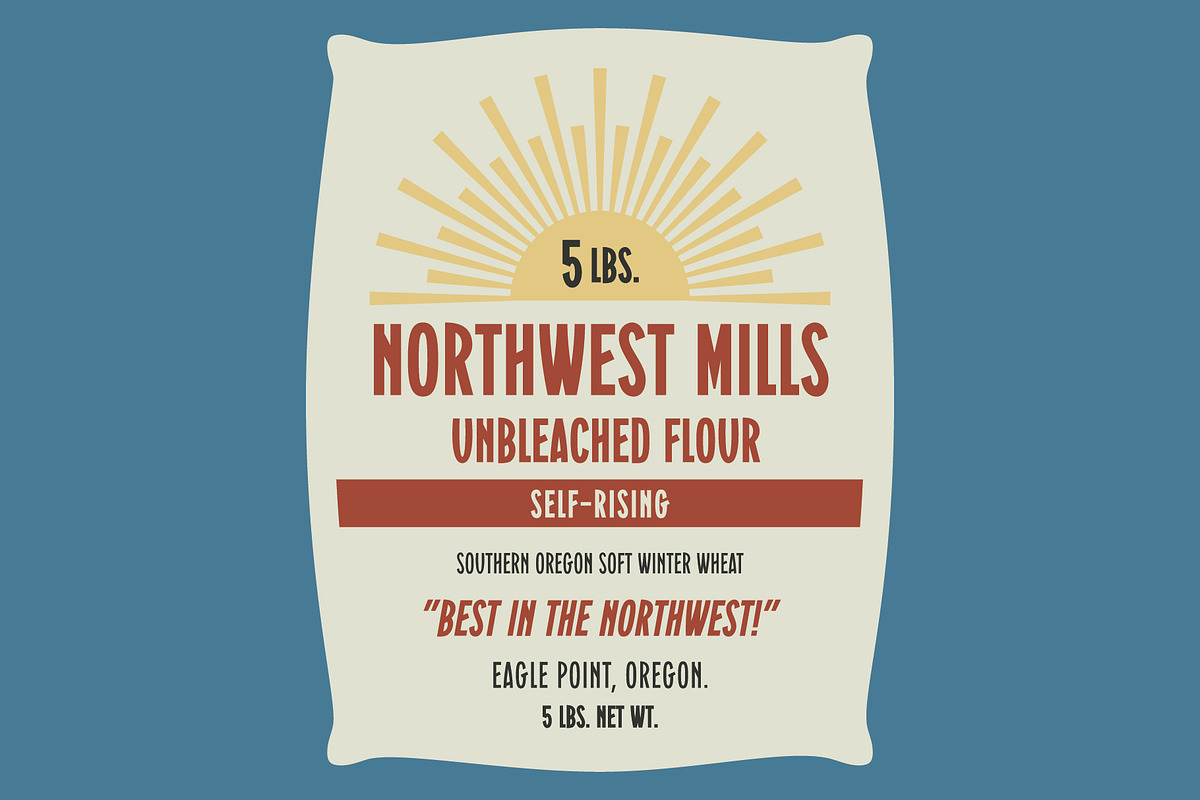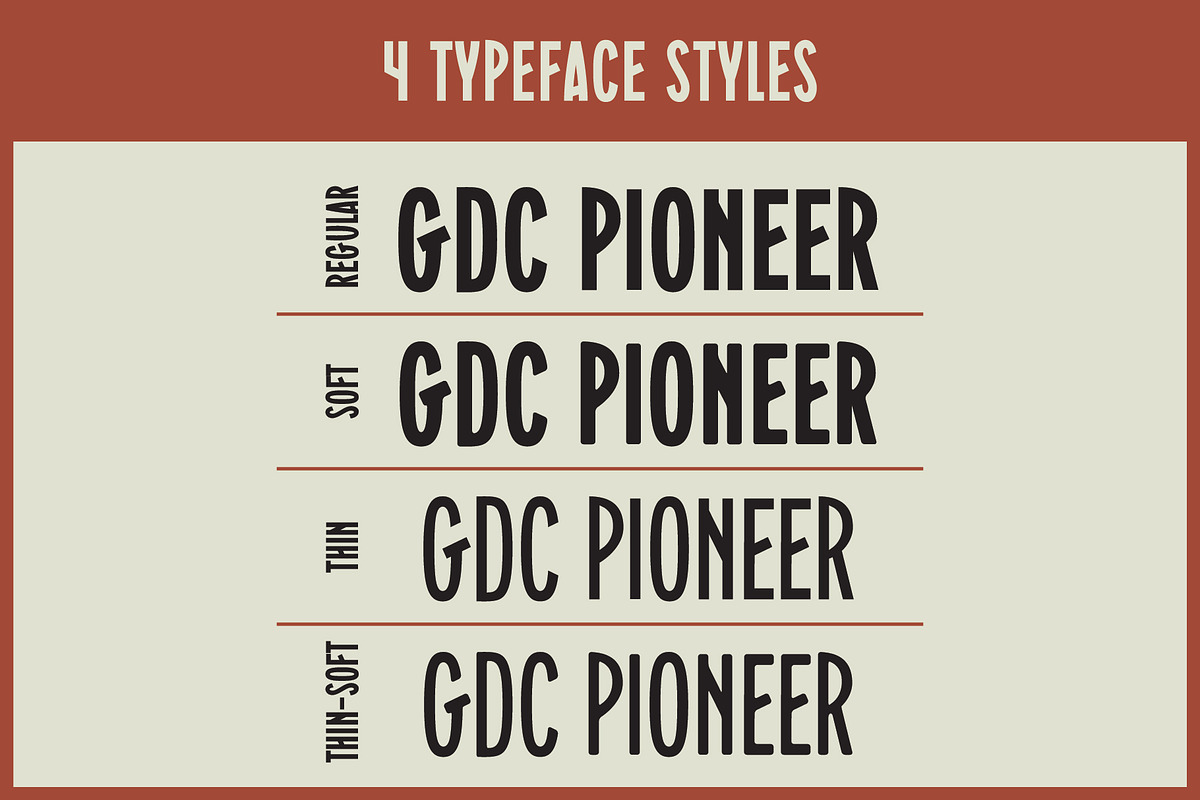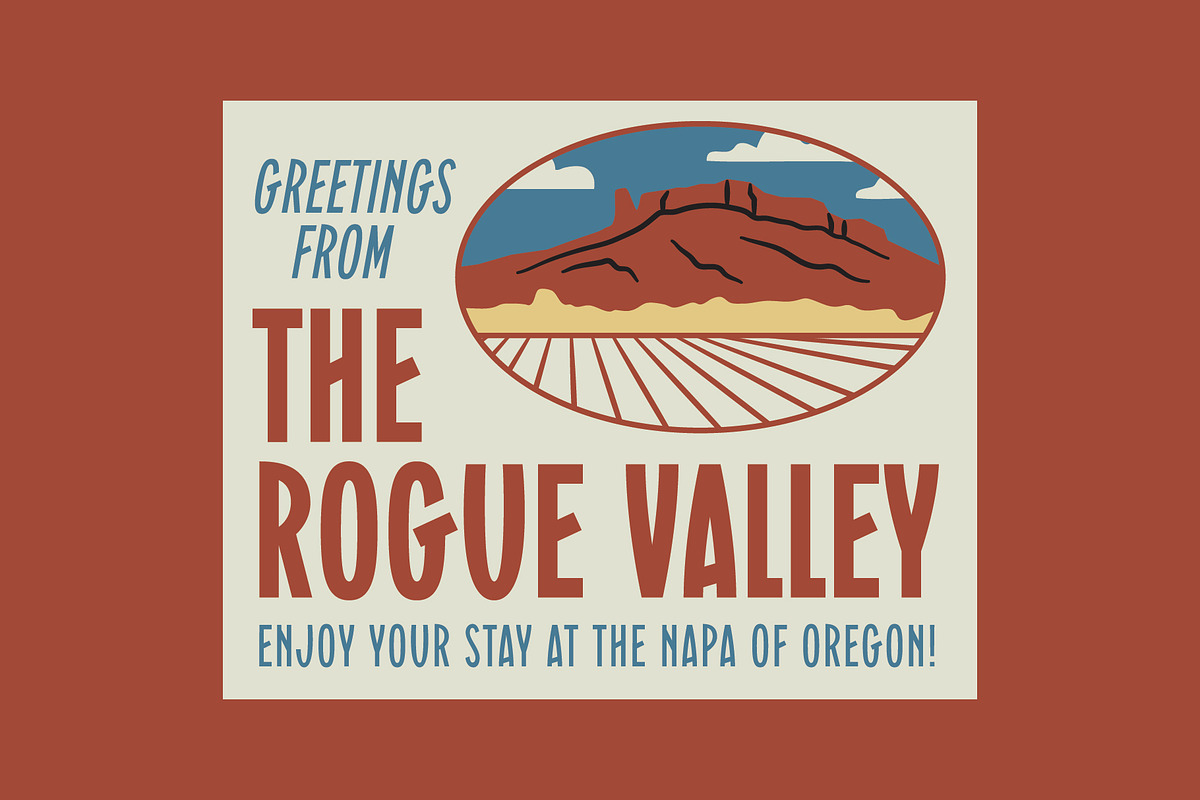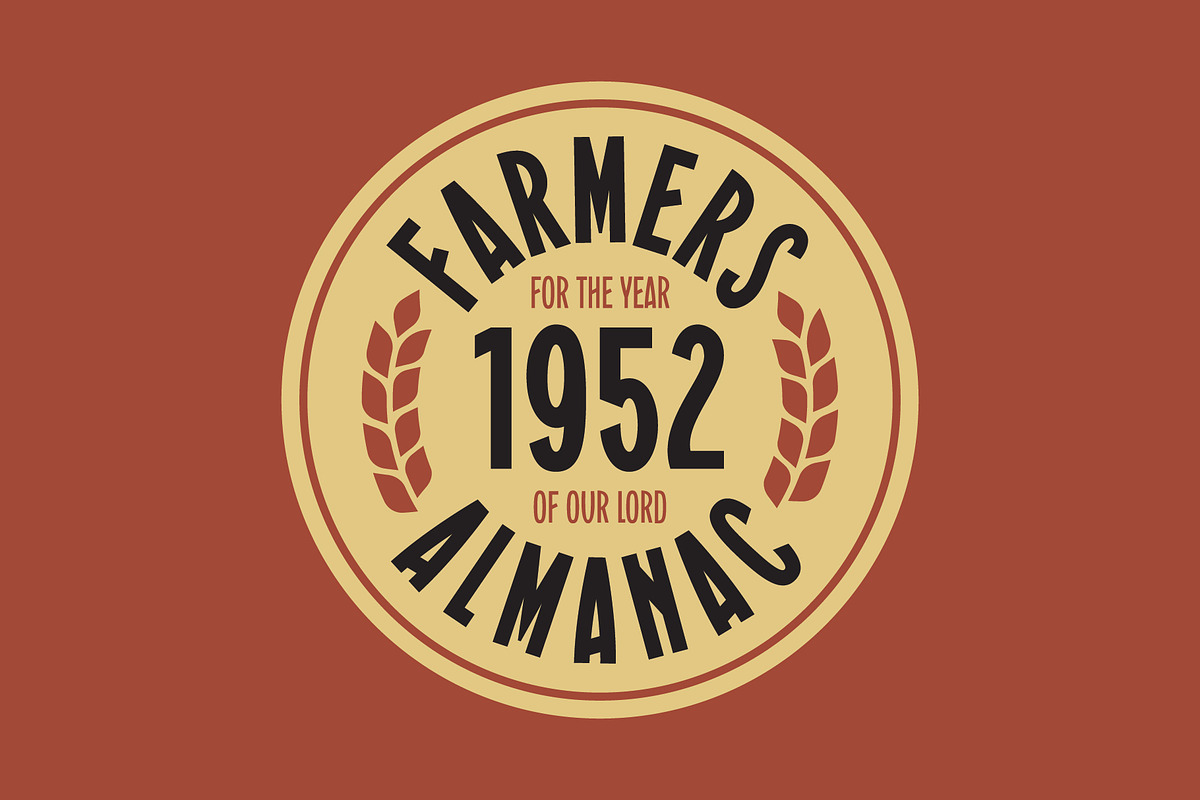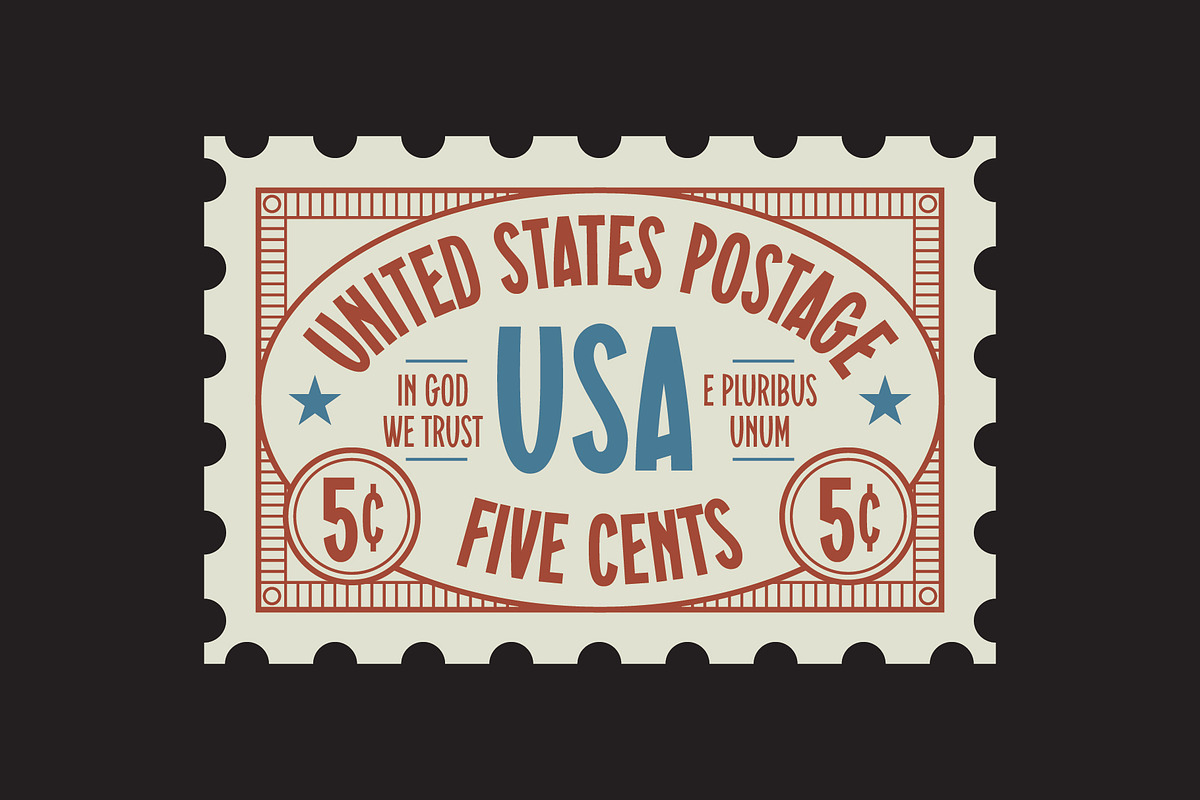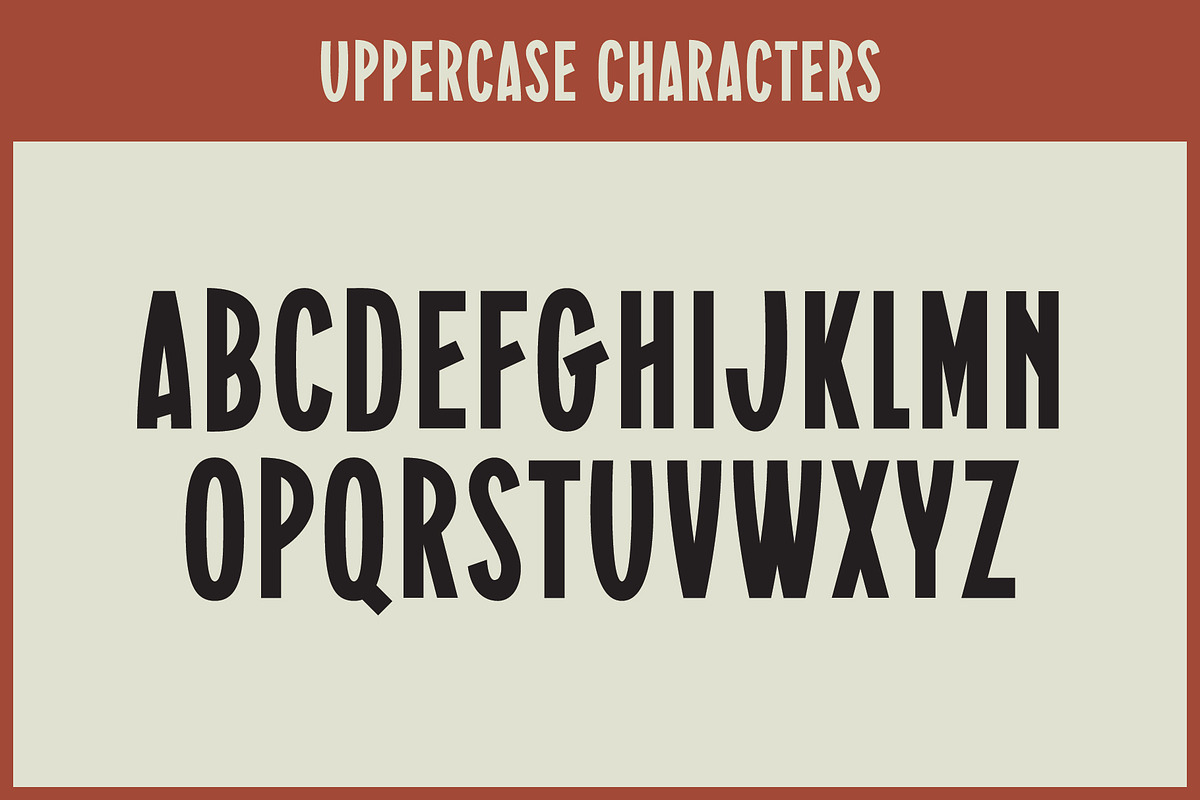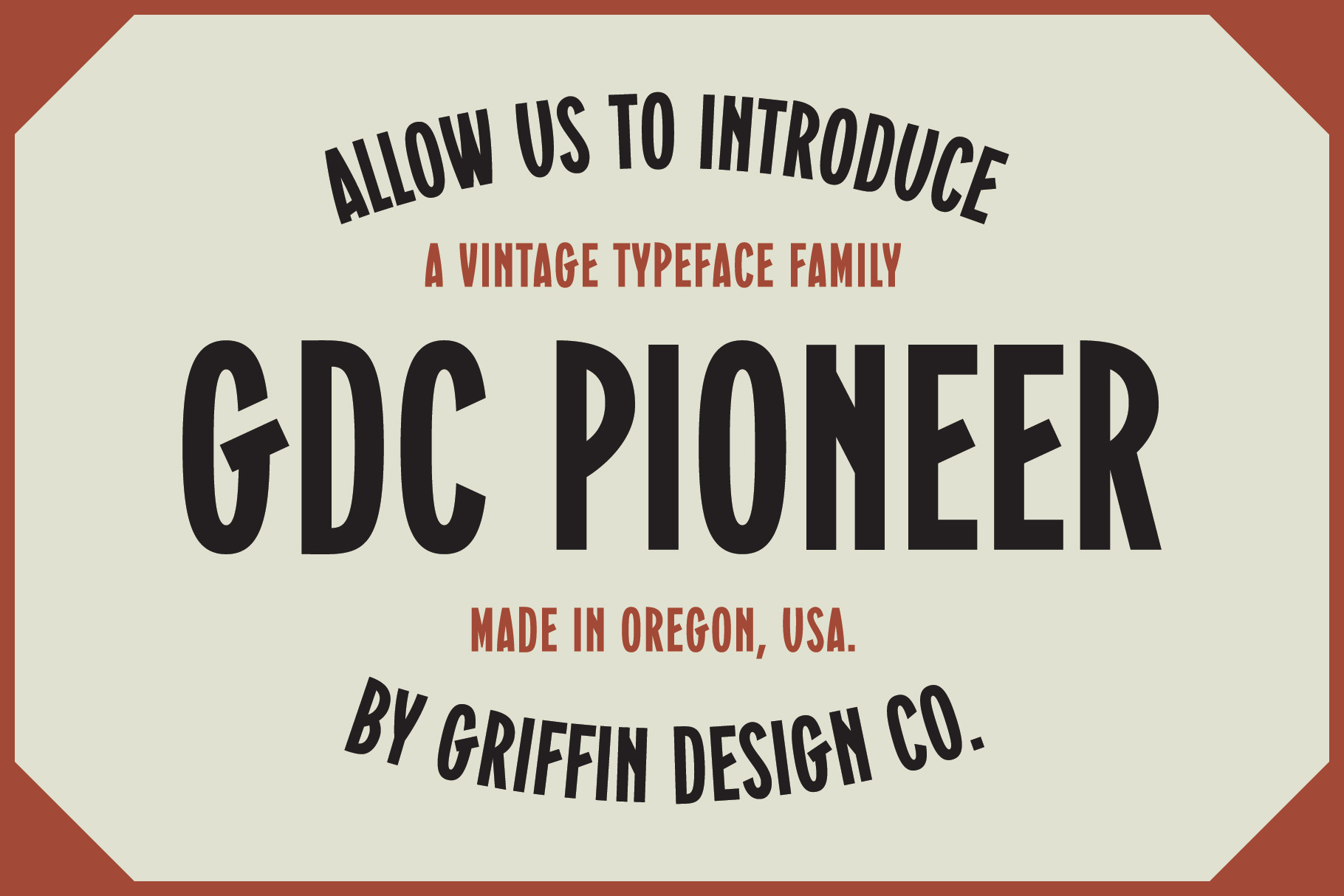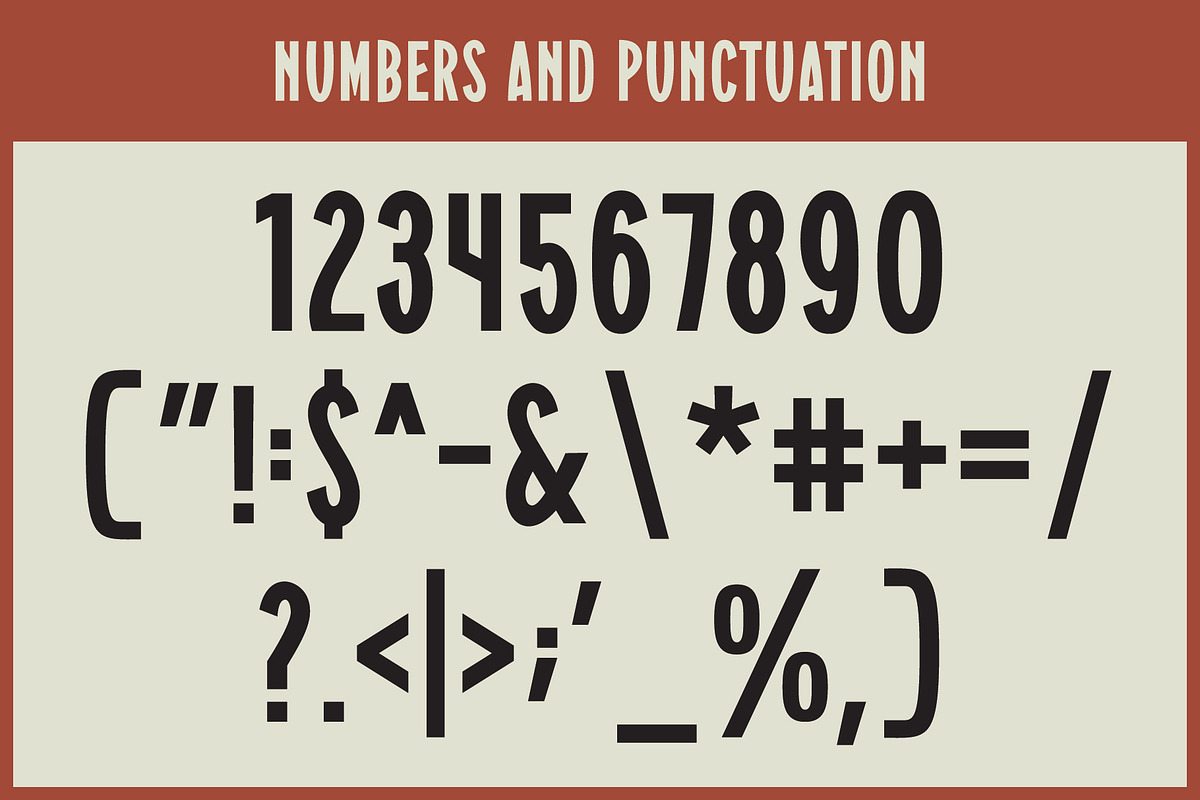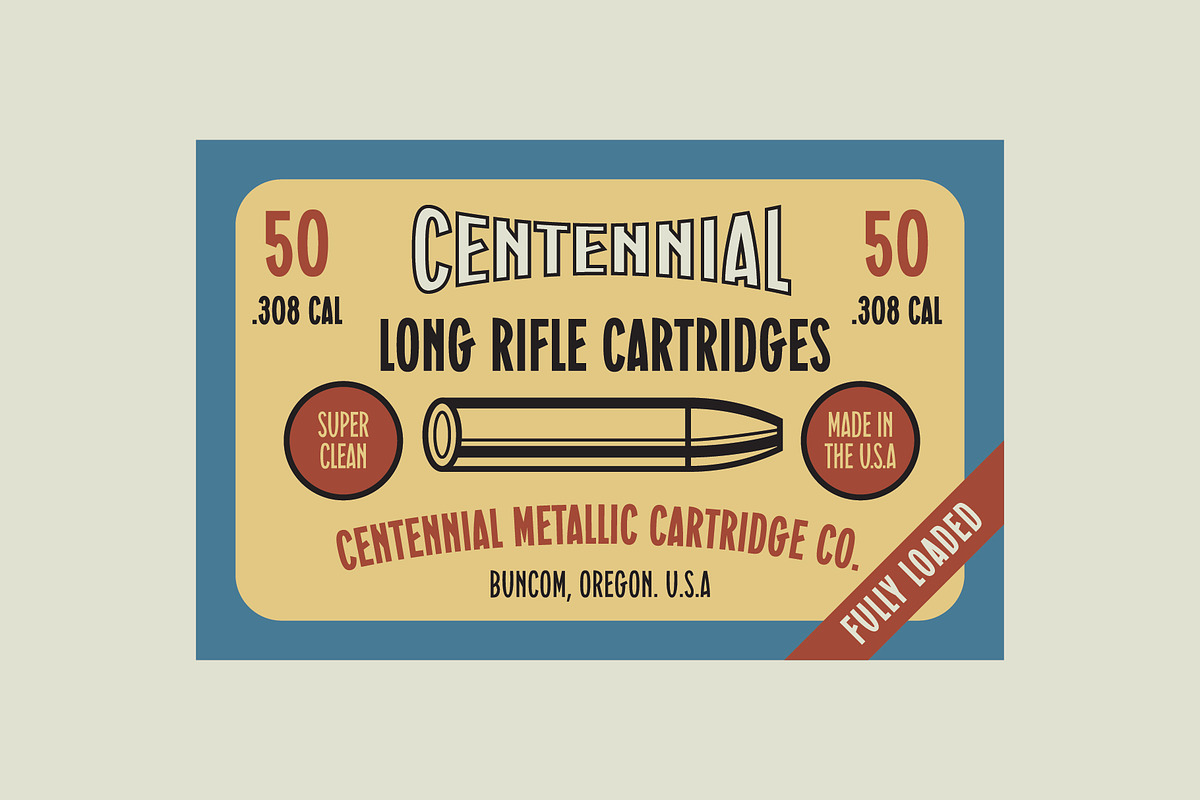
GDC PIONEER | Vintage Font
GDC Pioneer is a custom typeface inspired by the timeless design aesthetic of industrial America. Combine multiple styles for headlines, sub headlines, and copy. This font includes uppercase letters, numbers, and punctuation in 4 different styles.